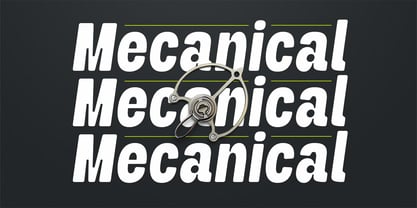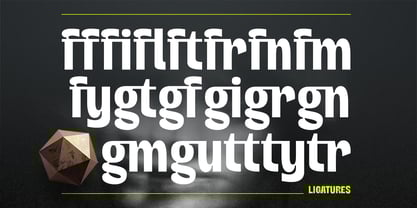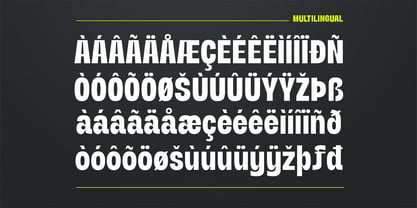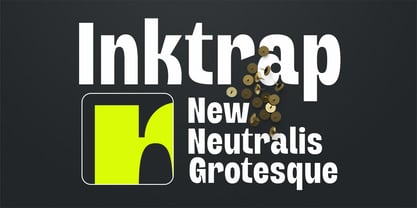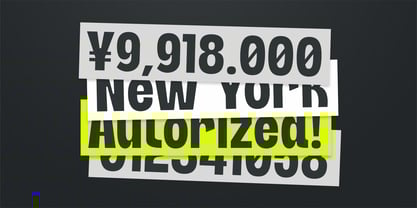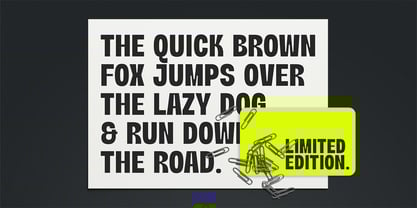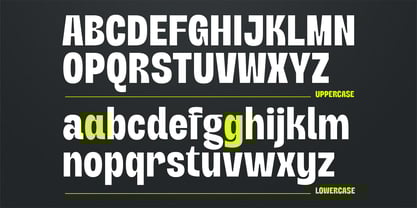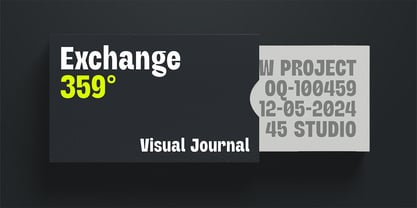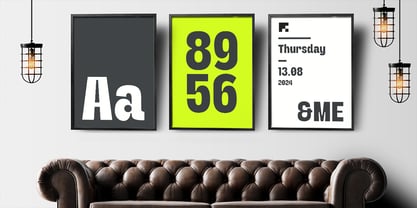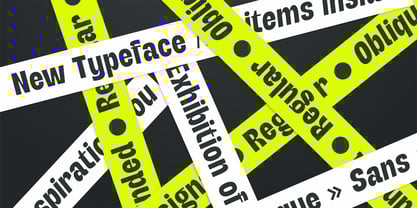
Neutralis
by Fargun Studio
The Neutralis Font Family was designed by Fajar Gunawan and published by Fargun Studio. Neutralis contains 4 styles and family package options.
Neutralis Grotesk is more than just a font—it's a bold exploration of form and function. By fusing the precision of geometric shapes with the structured charm of monospaced typography, this experimental typeface creates a sleek, modern vibe.
Playful and full of character, its quirky glyphs and distinctive details make every word pop. It’s a celebration of modernism infused with a monumental flair, delivering a design that's as unique as it is unforgettable.
Offered in Rounded, Regular, and Italics, Neutralis Grotesk invites you to break the norm. Because when typography is extraordinary, it’s always engaging.